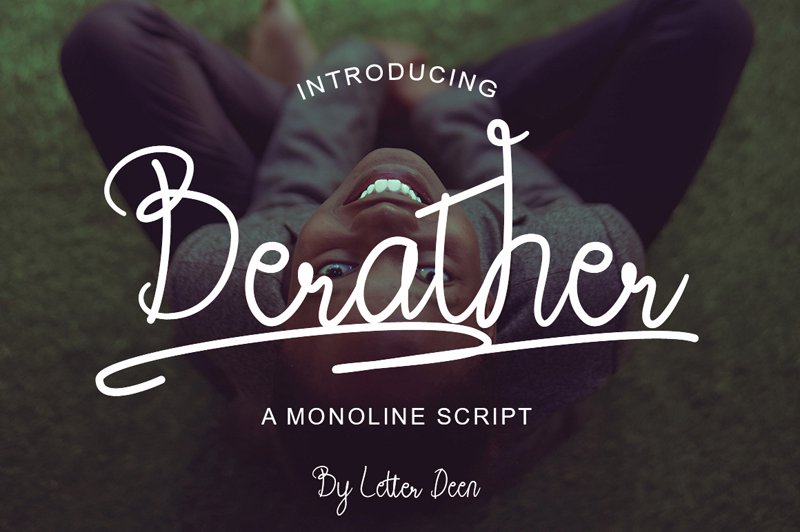
Font name: | Berather |
Author: | Muhammad Wahyudin |
Note by Muhammad Wahyudin | |
Hi everyone! Berather Font is monoline script, with sweet touches and beautiful curves on each letter. This font is great for your next creative project. Berather Font is perfect for fashion magazines, product watermarks, branding projects, wedding designs, social media posts, advertisements, product designs, label product, logo product, photography, invitation, card business and any projects that need handwriting taste. NOTE: This demo font is for PERSONAL USE ONLY! But any donation are very appreciated. Paypal account for donation : https://www.paypal.me/wahyudin1886 Link to purchase commercial license : https://thehungryjpeg.com/product/3614053-berather-a-monoline-script-font If you need an extended license or corporate license, please contact us at wahyudin1886@gmail.com Thank you. |